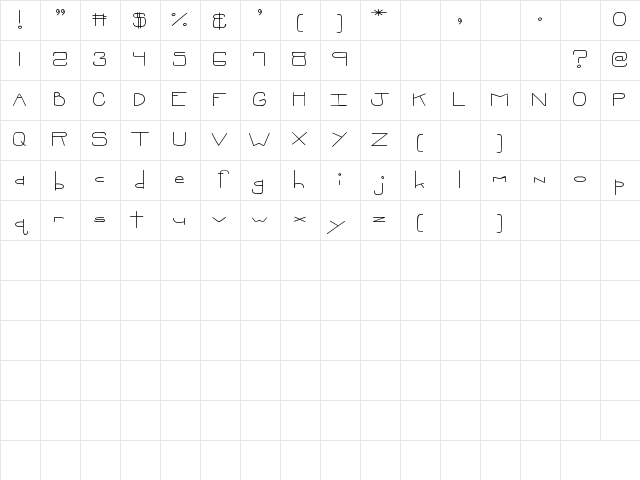
MTF Oopsie Regular
Designer: Tiina Raparanta
Design Context for MTF Oopsie
MTF Oopsie is a composed and adaptable typeface that performs quietly and consistently across a wide range of design contexts.